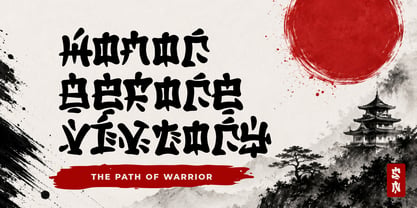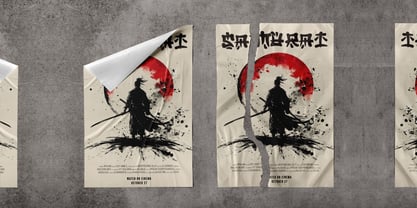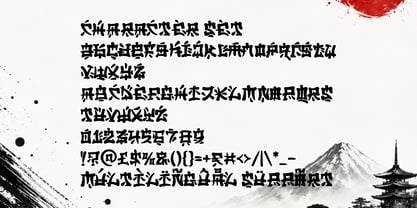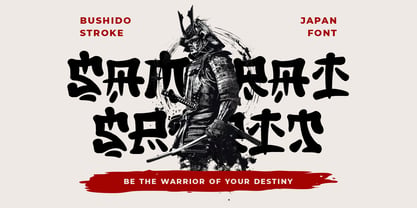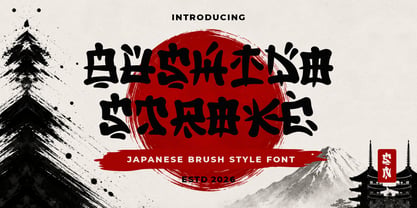
Bushido Stroke
by Shanaf
The Bushido Stroke Font Family was designed by Yesie Erma Yunita and published by Shanaf. Bushido Stroke contains 2 styles and family package options. More about this family
Bushido Stroke Japanese Brush Display Font delivers a strong Japanese character through expressive handcrafted letterforms. The design features thick brush-inspired strokes, compact proportions, uneven edges, and organic details that create an authentic cultural appearance. Every character carries a sense of movement, energy, and tradition while remaining clear for large typography. The overall look feels bold, artistic, and dramatic, making it ideal for projects that require a recognizable Japanese identity. This font works exceptionally well for logos, branding systems, headlines, advertising materials, posters, stickers, greeting cards, magazine covers, and promotional campaigns that aim to capture the spirit of Japan.
The visual structure draws inspiration from traditional brush writing and classic East Asian aesthetics. Strong stroke contrast and handcrafted construction help create a memorable presence in both print and digital media. Bushido Stroke Japanese Brush Display Font is suitable for Japanese restaurants, ramen houses, sushi brands, tea businesses, beverage products, food packaging, souvenir stores, cultural centers, tourism campaigns, and Asian-themed businesses. Beyond food-related branding, it also supports travel promotions, cultural events, craft products, publishing projects, and entertainment concepts that celebrate Japanese heritage and storytelling traditions.
This font performs especially well in movie titles, game graphics, comic covers, animation projects, martial arts promotions, and historical themes. Its bold appearance helps important messages stand out while maintaining a distinctive cultural atmosphere. Designers can use it for book covers, event invitations, festival promotions, product packaging, advertising headlines, and business branding. The combination of brush-inspired shapes and powerful silhouettes creates a visual language associated with samurai legends, ninja adventures, warrior stories, and traditional Japanese culture. The result is a font that adds character, emotion, and impact to a wide variety of creative projects.